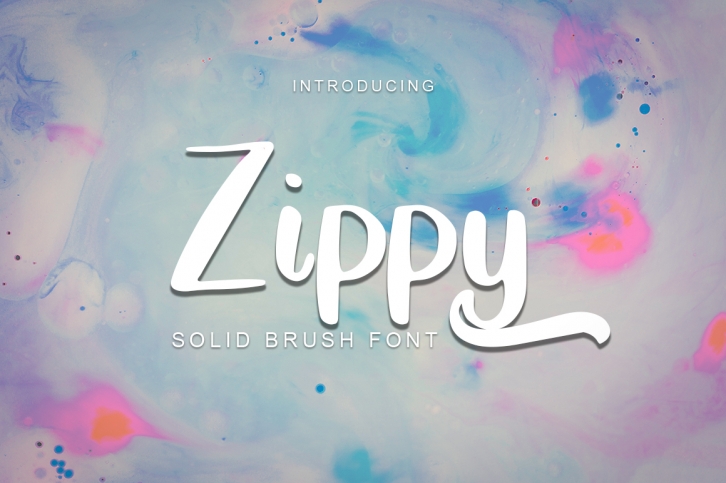
Zippy is a trendy and unique font with an authentic style. It was designed by Green Adventure Studio and it's a great choice for creative people who need such a font. It was released on January 12, 2020 and the file size is 21.68 MB. Zippy will add an organic vibe to any design idea!